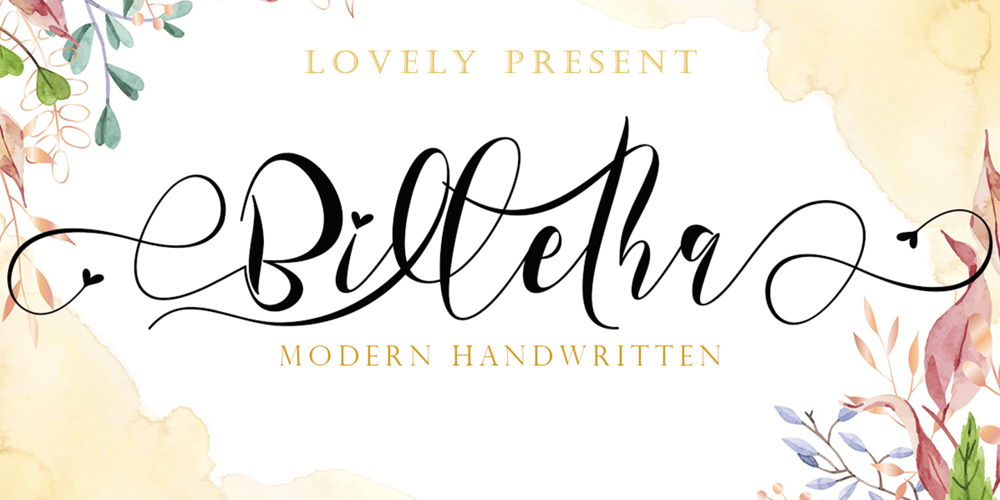
Billetha Font Family was designed by Isroni Yoga Prasetya and published by Yoga Letter. Billetha contains 1 styles and family package options. “Billetha” is a beautiful handwritten font decorated with love. This font is very suitable for Christmas, Valentine’s Day, weddings, engagements, branding, and others. Equipped with uppercase letters, lowercase letters, numerals, punctuation, swash, titling, uppercase alternates, ligatures, and multilingual support